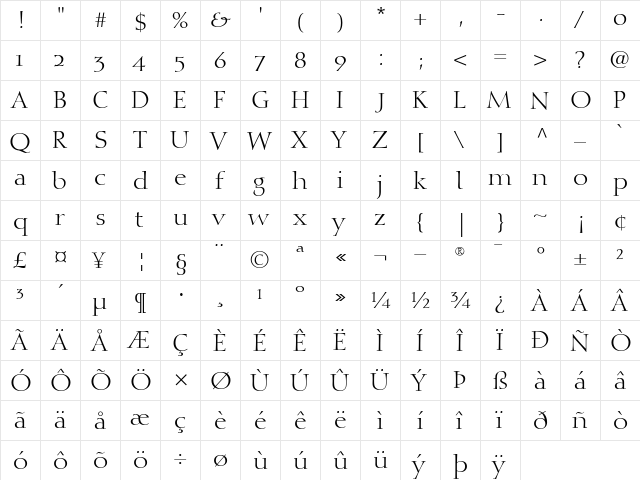
DiotimaRomanOldstyleFigures Roman
Design Context for DiotimaRomanOldstyleFigures Typeface
DiotimaRomanOldstyleFigures carries the refined structure of traditional serif typography, with bracketed terminals and considered proportions that communicate credibility and craft.
Pro Tip: Use DiotimaRomanOldstyleFigures for editorial body copy and considered headline work. Pair with a neutral sans for UI elements or captions to create a classic hierarchy.